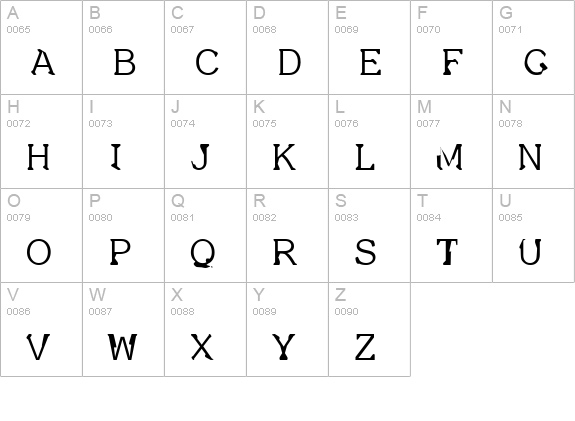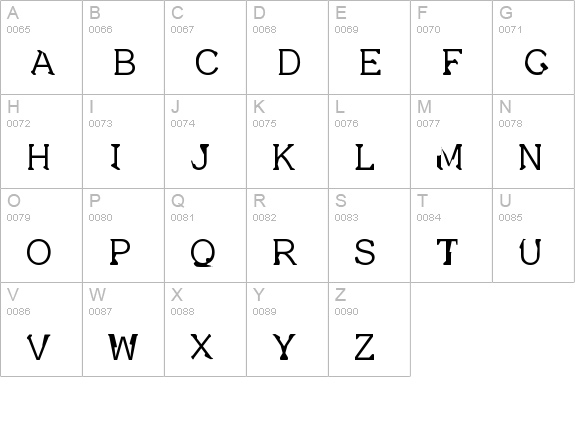
Dissatisfaction Font Details
Introducing Dissatisfaction font, a bold and striking typeface that exudes an air of rebellion and nonconformity. With its jagged edges and uneven lines, Dissatisfaction font is perfect for adding a touch of edginess to your designs. Whether you're looking to make a statement or simply want to stand out from the crowd, this font is sure to leave a lasting impression. The best part? Dissatisfaction font is completely free to download at FontsMarket.com. Yes, you read that right - you can get your hands on this unique and eye-catching font without spending a dime. So why wait? Add some attitude to your projects today with Dissatisfaction font.